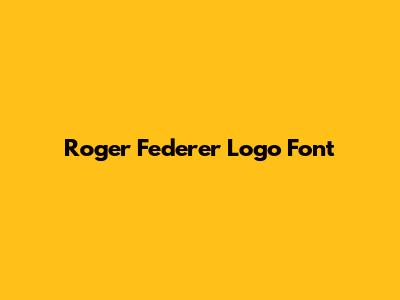
Roger Federer Logo Font: A Comprehensive Guide
Let's dive into the fascinating world of Roger Federer and his iconic logo! When we think of Roger Federer, we picture not only his graceful moves on the court but also the sophisticated brand he built around his name. A key part of that brand is, of course, his logo. Ever wondered about the font used in the Roger Federer logo? Well, you're in the right place, guys! This article will break down everything you need to know about the Roger Federer logo font, its design, and its significance. From its origins to its impact on the world of sports marketing, we’ll cover all the bases. So, buckle up and get ready to explore the font that represents one of the greatest tennis players of all time.
The Roger Federer logo isn't just a random collection of letters; it's a carefully crafted representation of his personality and brand. The font plays a massive role in conveying the right message. It needed to be something that screams elegance, confidence, and approachability all at once. The actual font used in the original logo is a custom design, meaning it wasn't just picked off the shelf. It was made specifically for him, adding to its uniqueness and exclusivity. The designers tweaked existing fonts to achieve the perfect balance, ensuring it stood out while remaining timeless. When creating such a distinctive brand element, designers often consider various factors, including the target audience, the overall brand identity, and the message they want to communicate. In Federer's case, the goal was to embody his on-court finesse and off-court sophistication. That’s why the font appears both modern and classic, reflecting his enduring legacy in the sport.
Many speculate about the exact font that served as the base for creating the Roger Federer logo. While the exact font remains a closely guarded secret, typography enthusiasts have drawn comparisons to several sophisticated sans-serif fonts. Fonts like Helvetica, Myriad Pro, and Avenir often come up in discussions. These fonts share similar characteristics in terms of clean lines, balanced letterforms, and overall readability. However, it's crucial to remember that the Federer logo font is a customized version, meaning it has unique alterations that set it apart. These modifications might include subtle changes to the letter spacing, weight, or specific character designs. Such bespoke touches are what make a logo truly unique and memorable. The fact that the font isn't readily available off-the-shelf adds to the mystique and exclusivity surrounding the Roger Federer brand. It emphasizes that this is a design tailored specifically for him, embodying his personal brand values.
Key Characteristics of the Roger Federer Logo Font
Let's break down the key characteristics that define the Roger Federer logo font. When you look at the logo, what stands out? First off, it's a sans-serif font, meaning it lacks the small decorative strokes (serifs) that you find in fonts like Times New Roman. This gives it a modern and clean appearance. The lines are smooth and consistent, creating a sense of balance and harmony. The font also has a certain elegance to it, which reflects Federer's graceful playing style and sophisticated persona. The letters are well-proportioned, ensuring readability and visual appeal. The spacing between the letters is carefully considered, preventing the logo from looking either too crowded or too sparse. Overall, the font embodies simplicity, clarity, and sophistication – qualities that are synonymous with Roger Federer himself.
Another important aspect to note is the font's versatility. It looks great in various sizes and contexts, whether it's on a tennis racket, a clothing line, or a website. This adaptability is crucial for maintaining brand consistency across different platforms. The Federer logo font also exudes a sense of confidence and authority, without being overly aggressive or imposing. It strikes the perfect balance between strength and elegance, reflecting Federer's dominant yet graceful presence on the tennis court. In essence, the Roger Federer logo font is a masterclass in minimalist design. It proves that you don't need elaborate embellishments to create a powerful and memorable brand identity. The font's clean lines and balanced proportions speak volumes, conveying the essence of Federer's brand with remarkable clarity.
Furthermore, the Roger Federer logo font is timeless. Despite being created several years ago, it still looks fresh and relevant today. This enduring quality is a testament to its smart design and careful execution. It avoids trendy or overly stylized elements that could quickly become outdated. Instead, it focuses on classic typography principles that stand the test of time. This timelessness is particularly important for a brand like Roger Federer, which is built on a foundation of enduring excellence. The logo represents not just a fleeting moment in time, but a lasting legacy of achievement and sportsmanship. The choice of font plays a crucial role in conveying this sense of longevity and timelessness. It suggests that the Federer brand is not just about current success, but about a lasting impact on the world of tennis and beyond. So, the font used isn’t just aesthetically pleasing; it's strategically chosen to communicate the core values and long-term vision of the Roger Federer brand.
Why the Font Choice Matters
Now, let's talk about why the font choice matters so much. You might be thinking,